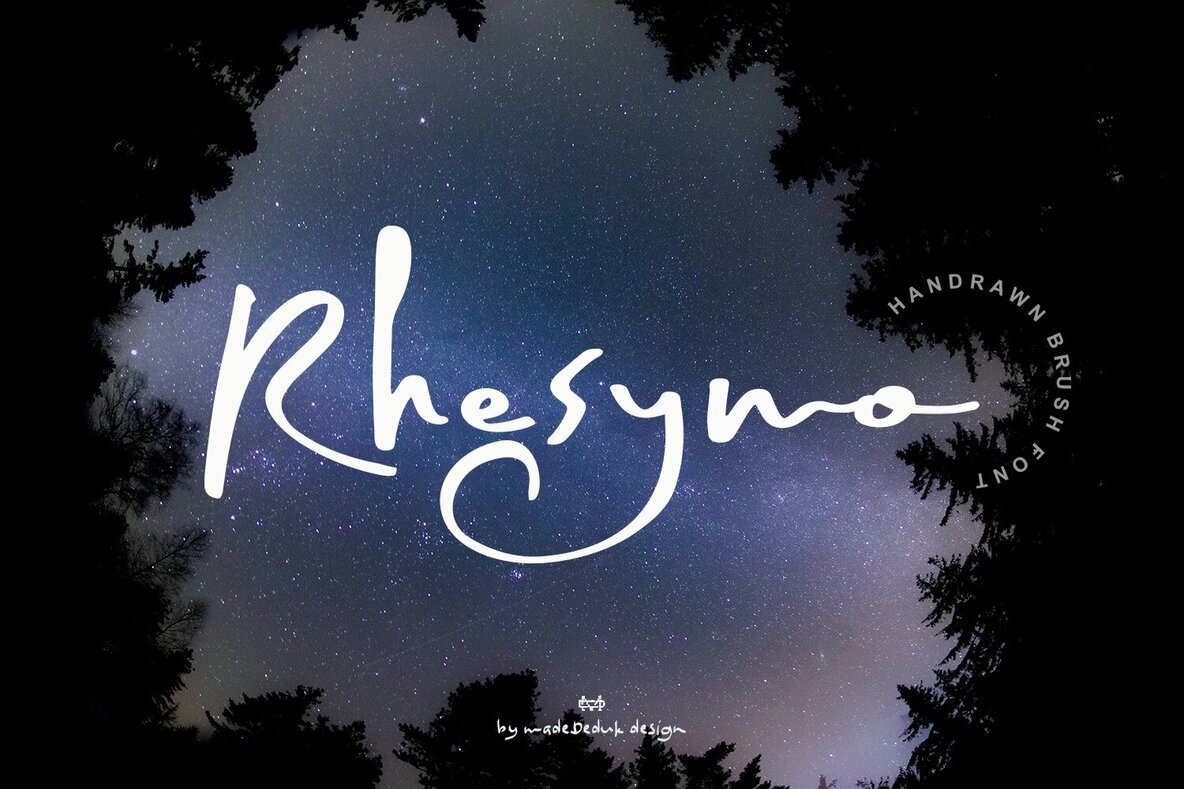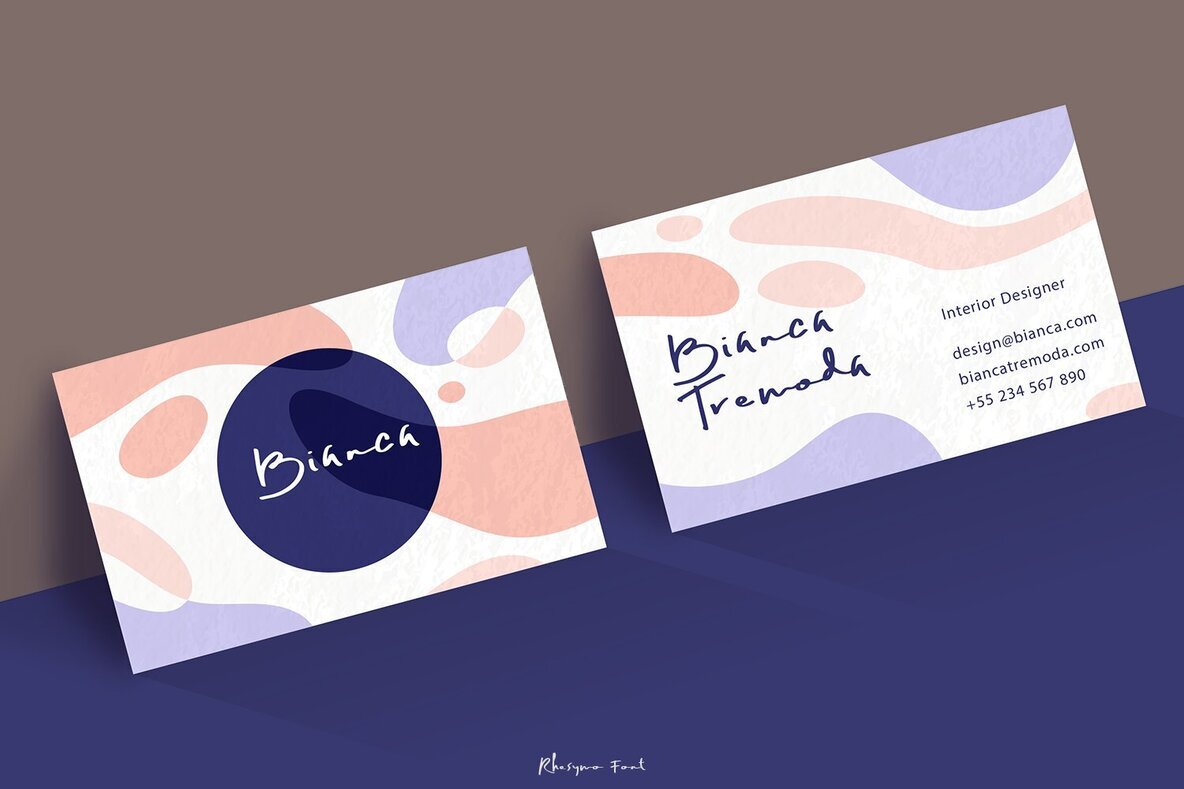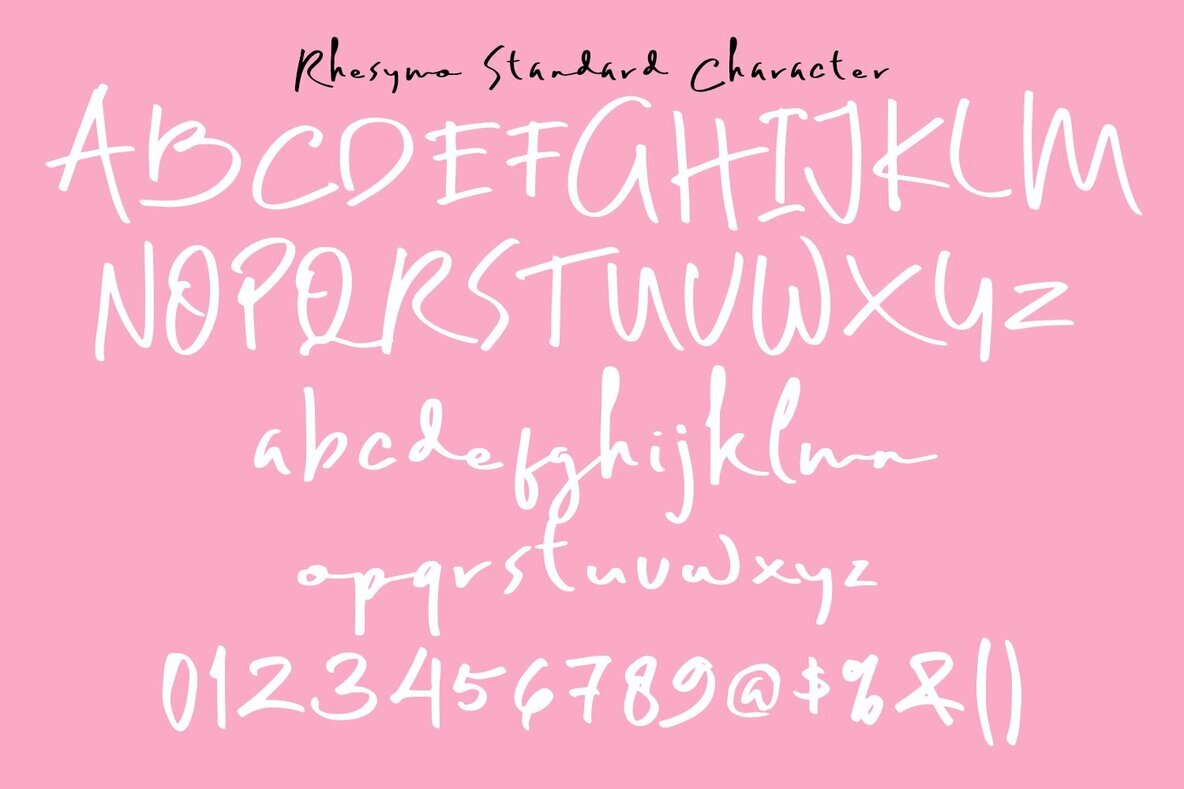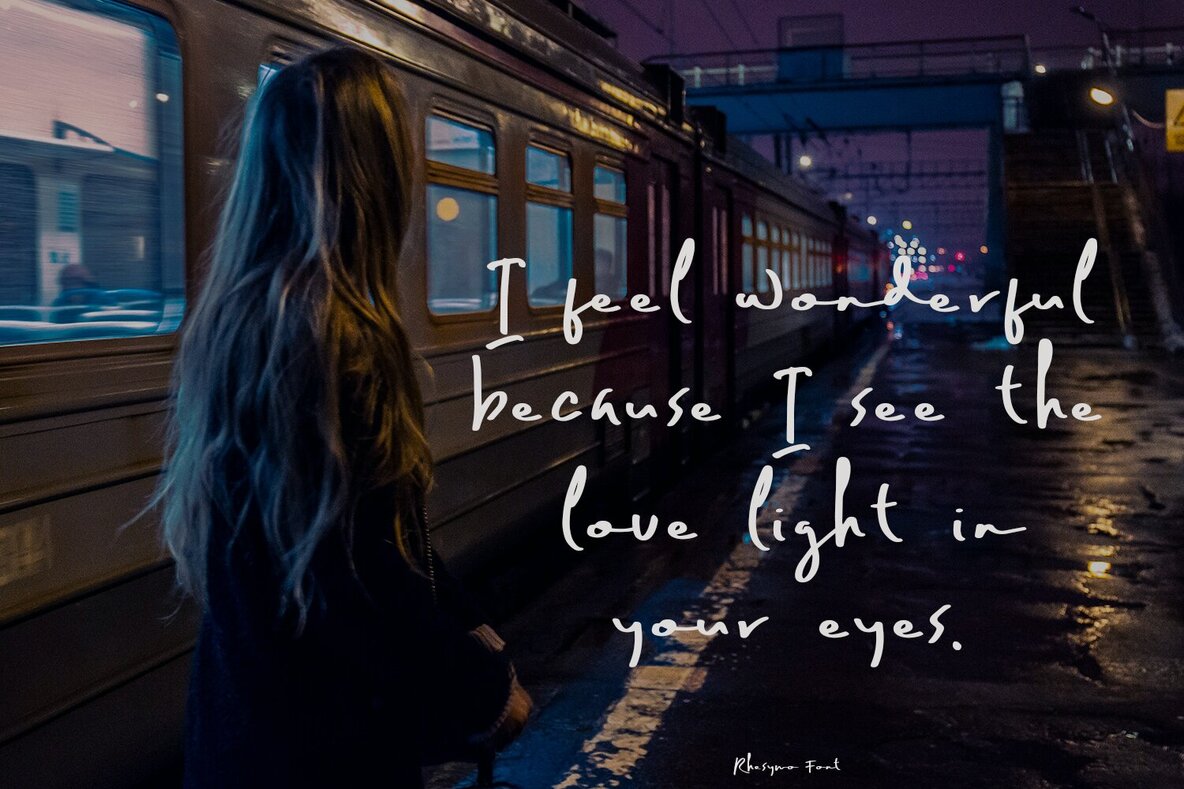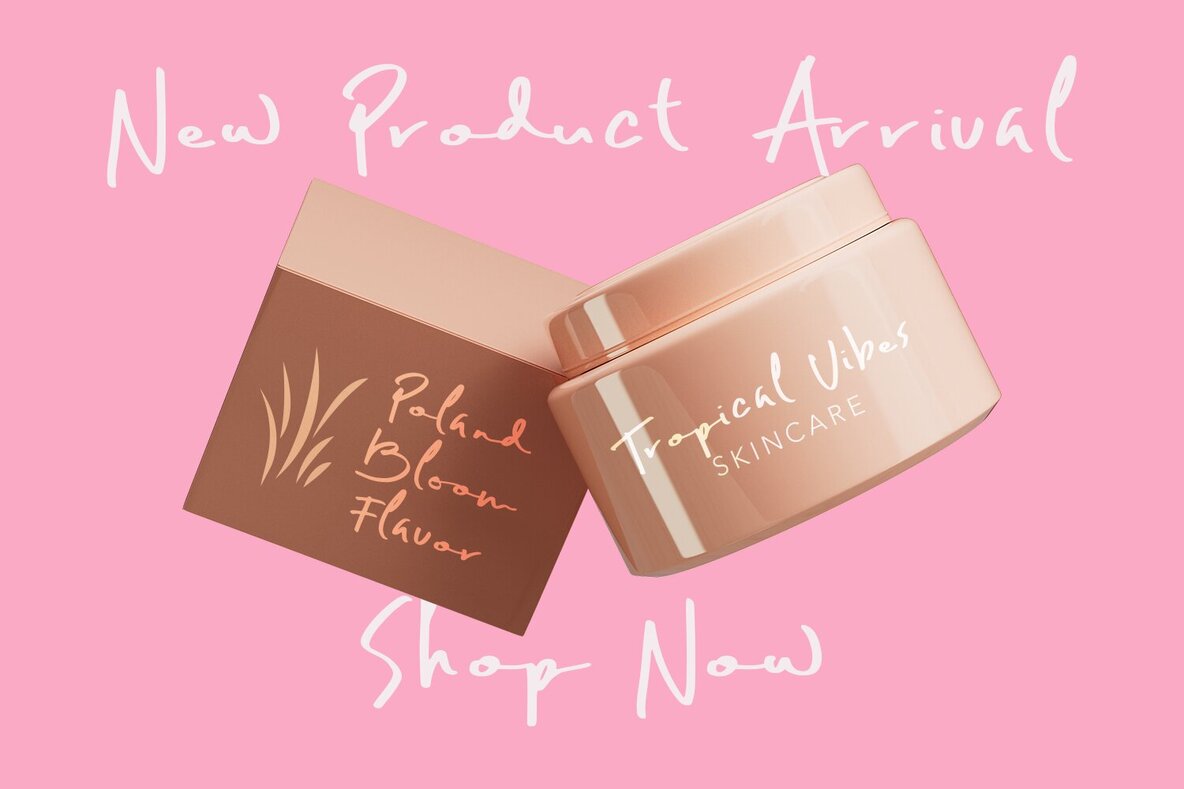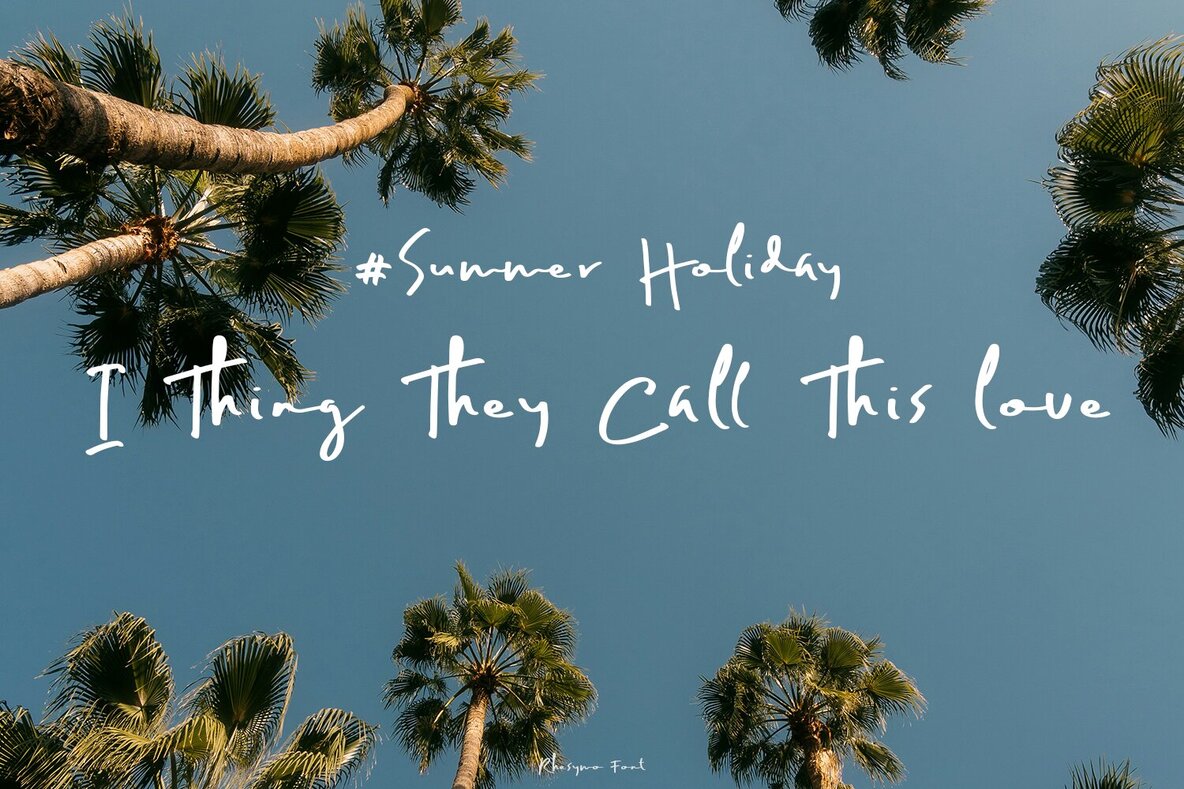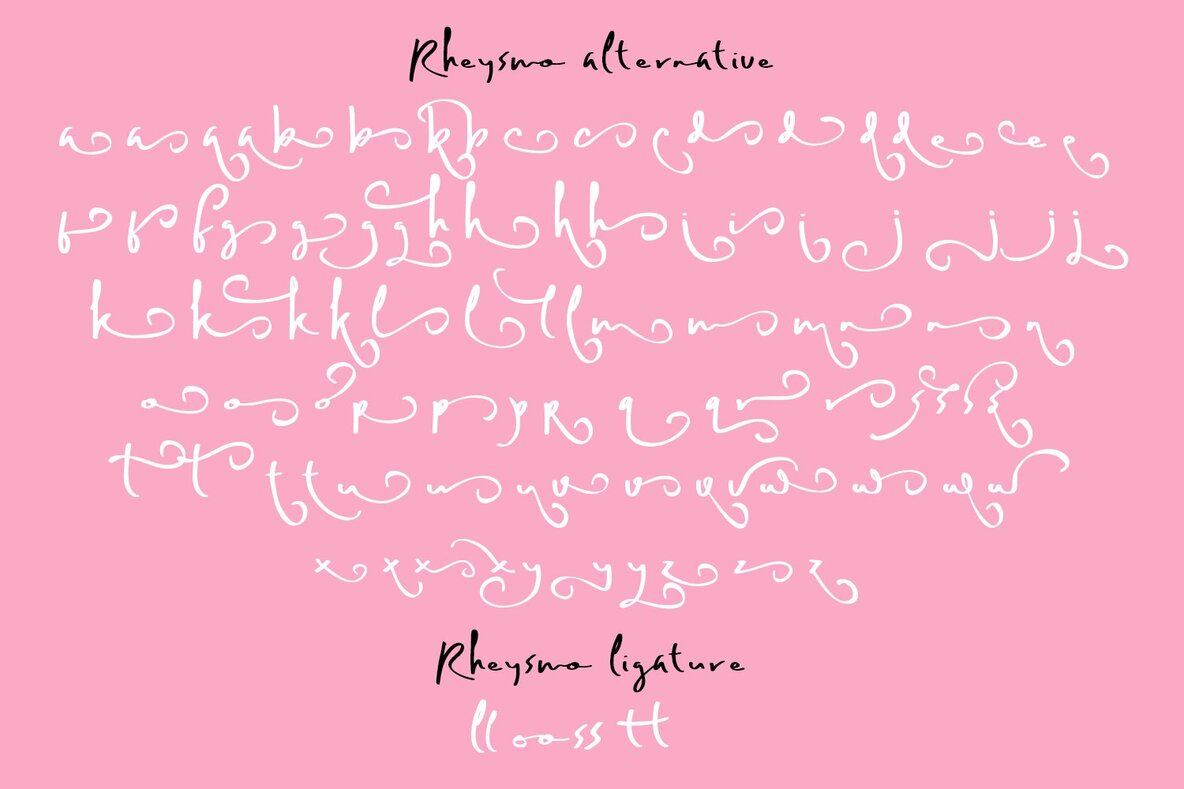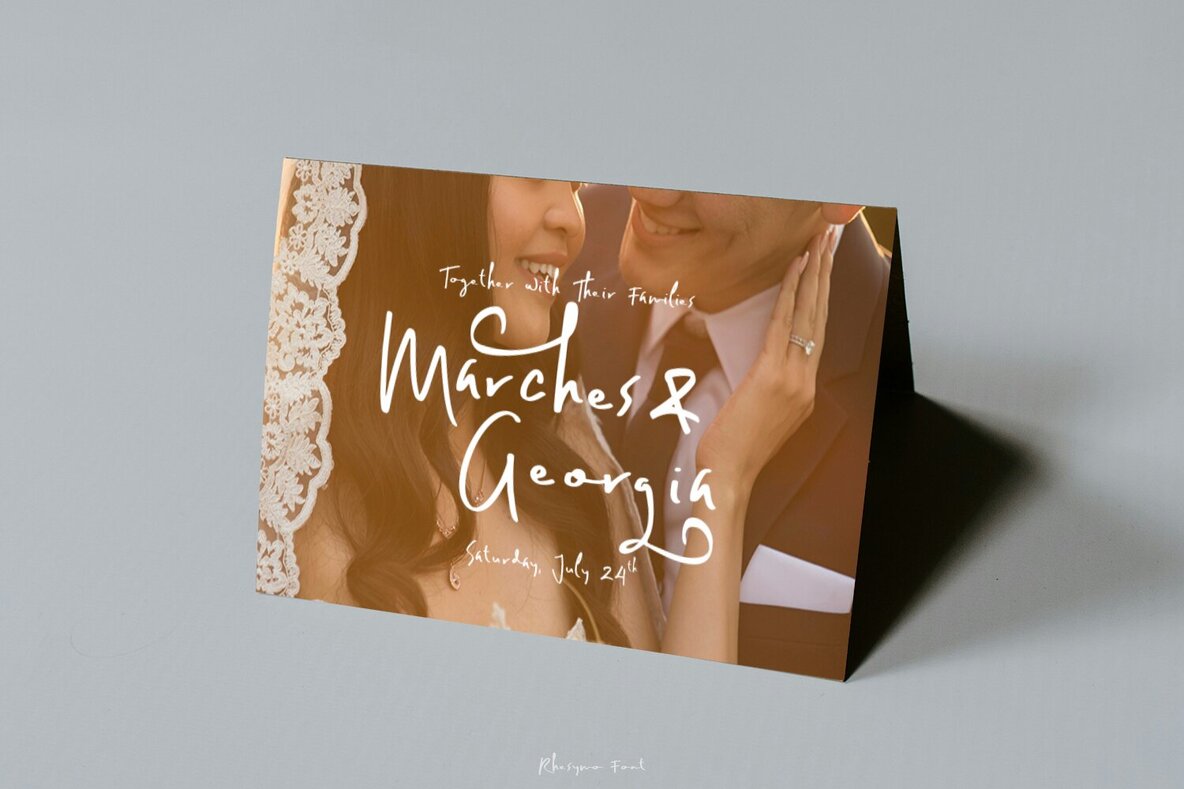
Rhesymo Font
Rhesymo
Rhesymo is an impressive brush font designed to leave a striking impact on various design projects. It is versatile and suitable for a wide array of applications, including poster design, book covers, merchandise, and fashion. Designers will appreciate the numerous alternatives available with this font, allowing for creative flexibility in branding, advertising, magazines, greeting cards, album covers, and more.
The distinct style of Rhesymo makes it an ideal choice for conveying bold and expressive messages. Its dynamic brush strokes bring a unique flair to newsletters and quotes, helping your designs stand out. Whether you're working on a professional project or personal creation, Rhesymo provides a stylish and captivating touch to enhance the visual appeal of your work.